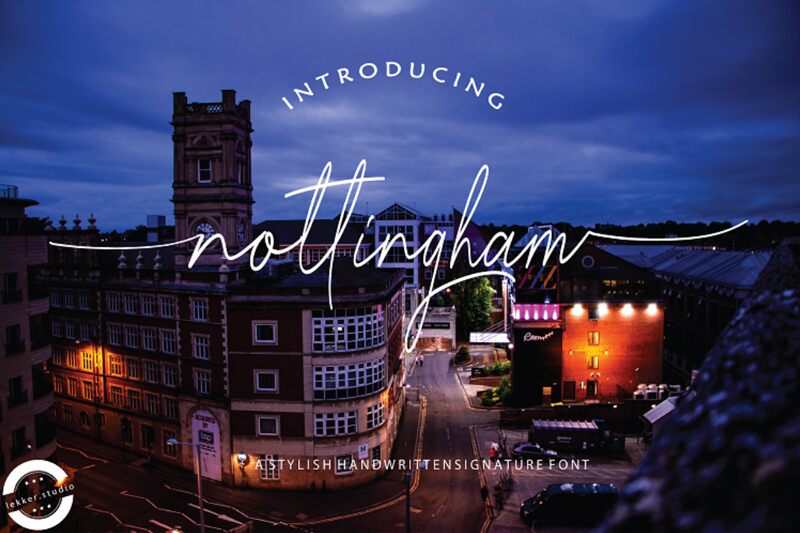
Nottingham, a delightful handwritten font by Lekker Studio, adds a touch of whimsy and charm to any project. With its extra-light weight and extra-condensed width, Nottingham is perfect for creating elegant invitations, unique logos, or captivating headlines. This font's airy strokes lend themselves beautifully to wedding stationery, while the playful curves make it a standout choice for children's book titles or branding for artisanal goods. Nottingham is an excellent choice for anyone looking to infuse their designs with personality and flair. Give your creations an extra dose of character with the one-of-a-kind Nottingham typeface.